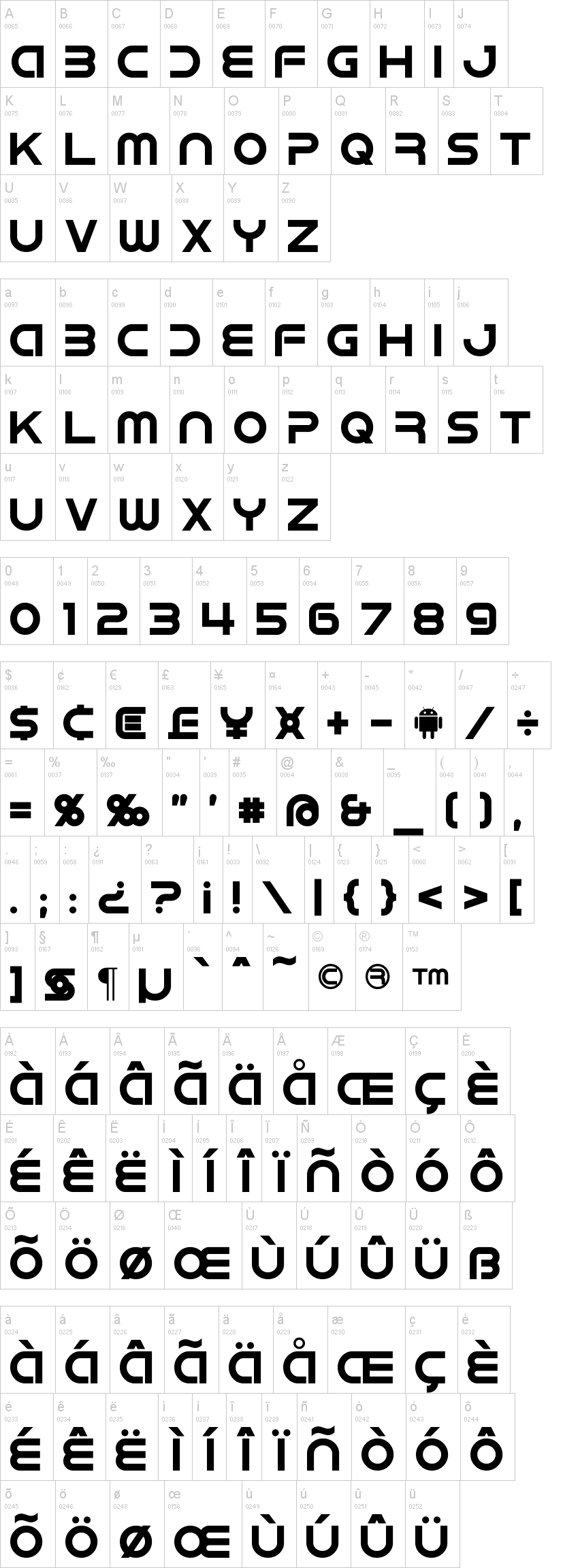
IDroid Italic.otfIDroid Bold.otfIDroid Bold Italic.otfNote of the authorIDroid is a bold, futuristic LCD face based loosely on the logo of the Android operating system. This font includes the full alphabet, numerals, euro and extended punctuation. Includes regular, bold, italic, and bold-italic weights.